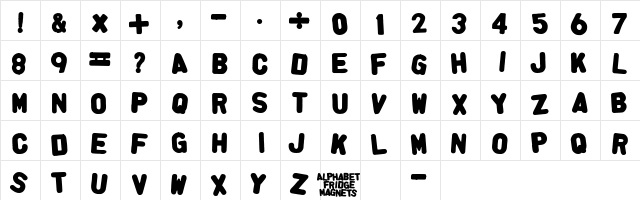
AlphabetFridgeMagnets Regular Font Preview
AlphabetFridgeMagnets Regular
Design Context for AlphabetFridgeMagnets Typeface
AlphabetFridgeMagnets takes a measured approach to typography — its balanced proportions and neutral character make it a reliable workhorse for both digital and print work.